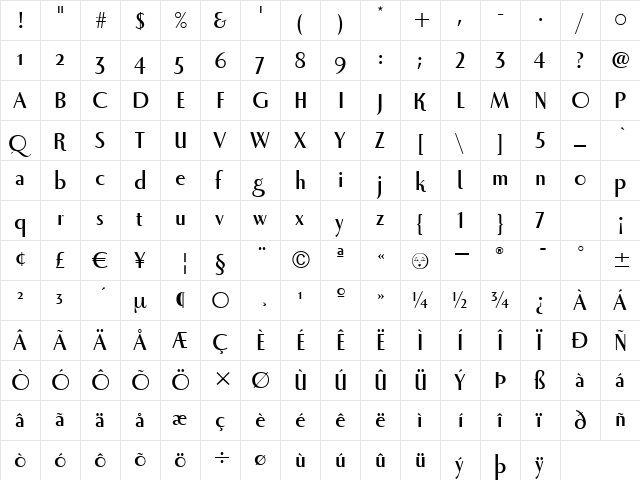
LunaITC TT Bold
| Foundry | International Typeface Corporation |
| Designer | Akira Kobayashi |
Design Context for LunaITC TT Typeface
LunaITC TT offers clean, dependable letterforms without strong stylistic allegiance, making it a practical choice for designers who need flexibility. Its bold stroke weight gives it real presence on the page.